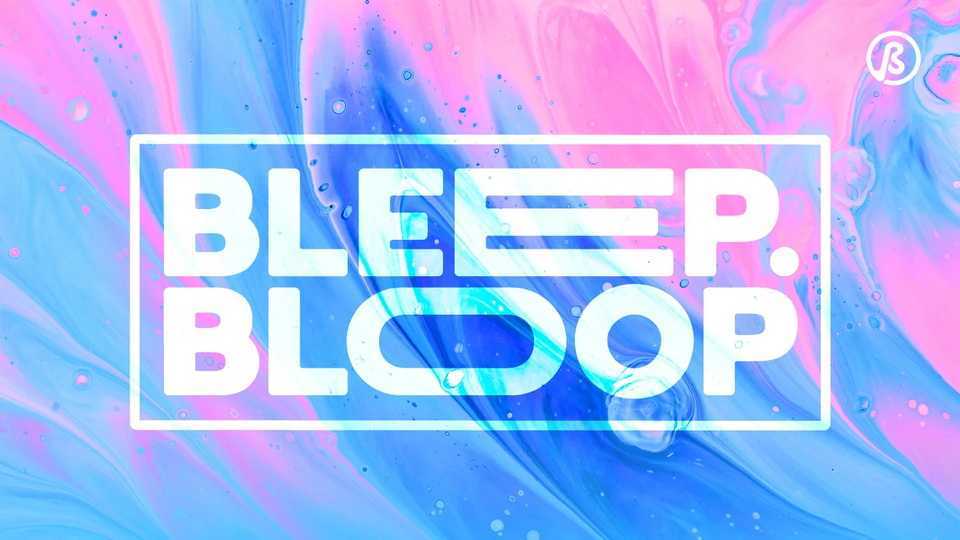
Download Bleep Bloop font, a bubbly width-variable display typeface. Bleep Bloop font has a slightly rounded edge, thick anatomy, and wide options of alternate glyphs.
Designer: Kreafolk